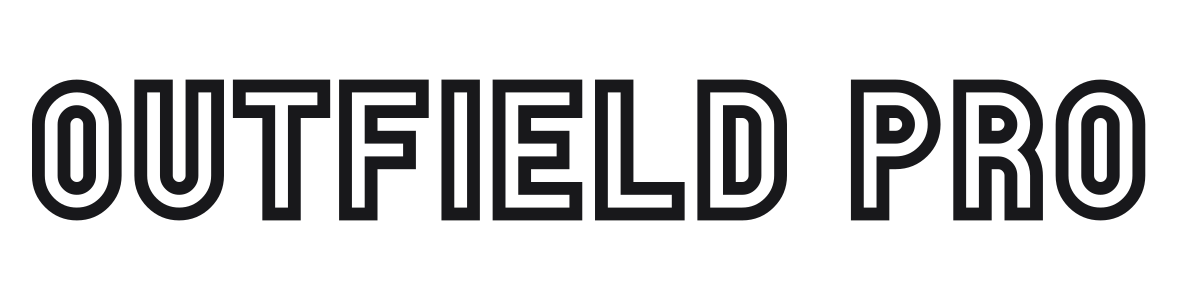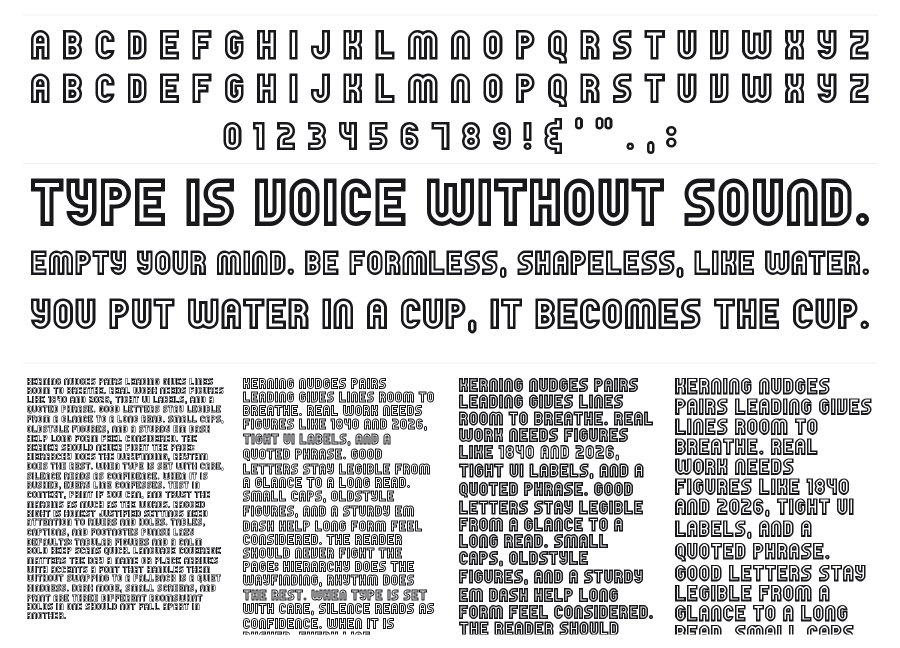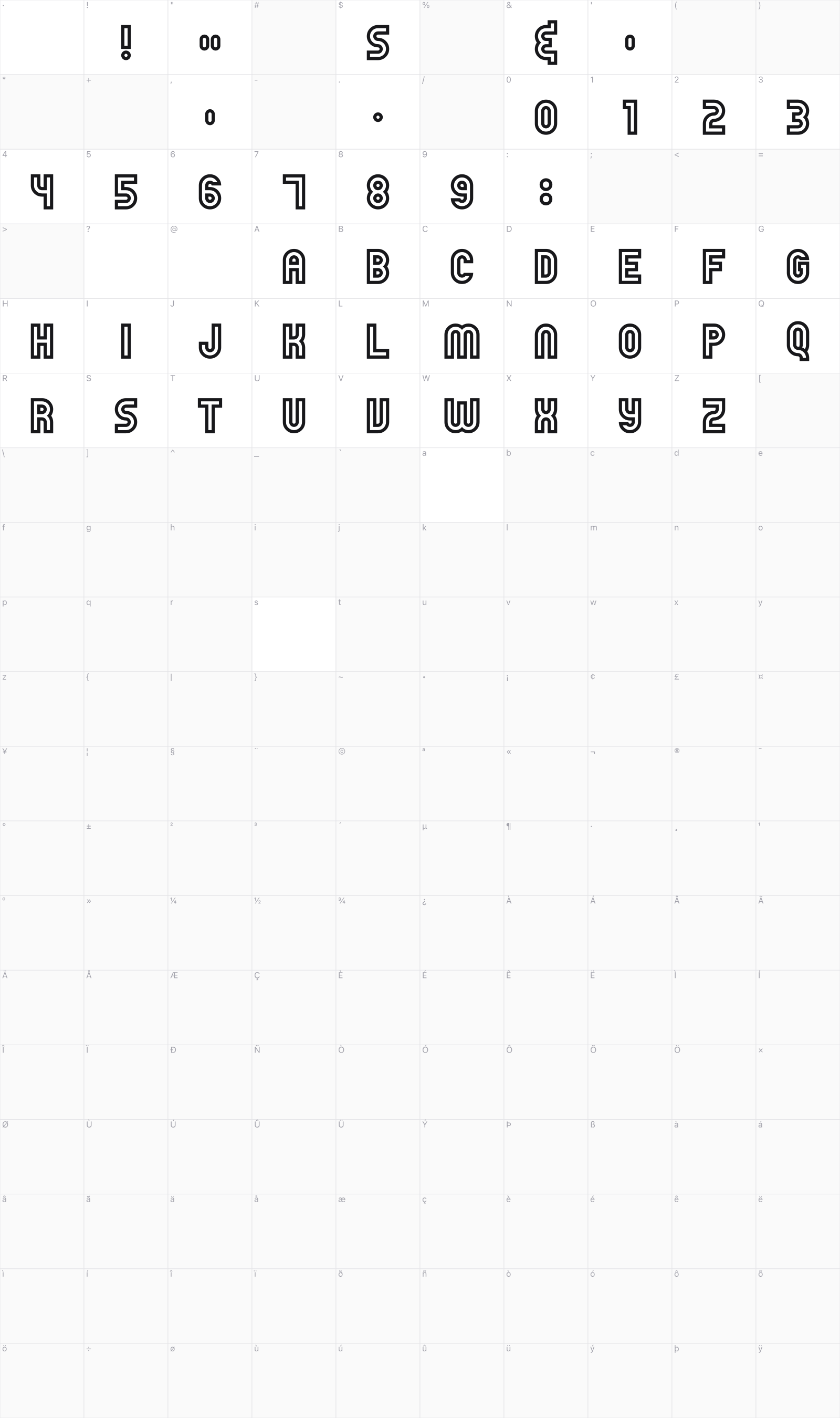
Outfield Pro
Outfield Pro is a bold condensed outline display font with a retro American sports DNA. Each character carries a double-stroke inline treatment with softly rounded corners, evoking stadium scoreboards and vintage varsity lettering. It hits hard at large sizes and carries real personality for sports branding, posters, and gaming visuals.